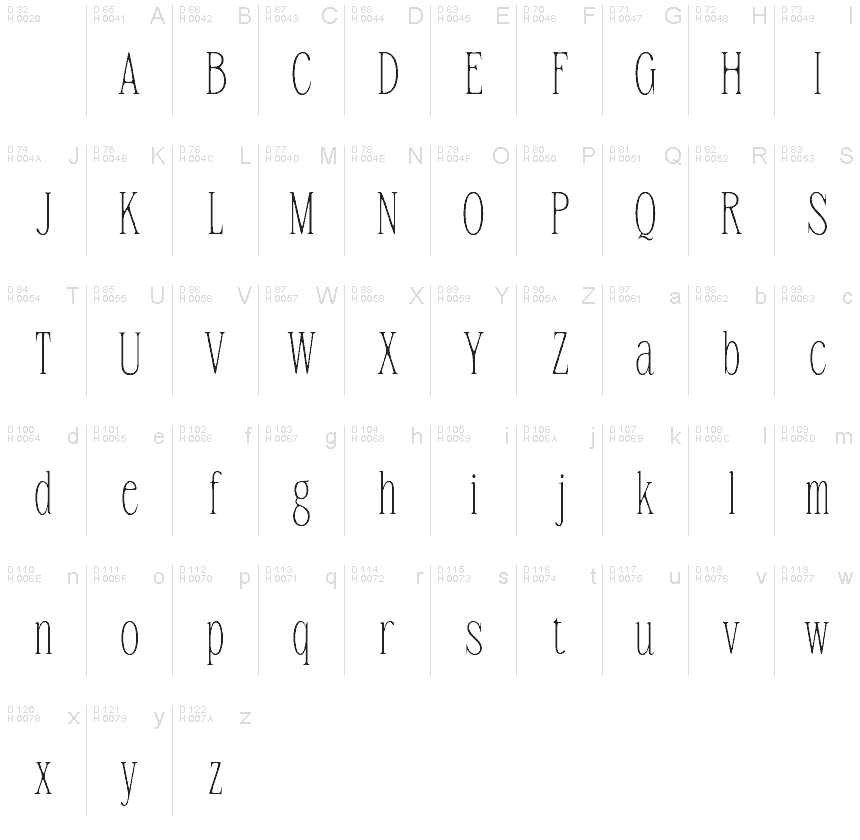
CSLeonaDrawn-Regular Demo
CS Leona Drawn font by Craft Supply Co. beautifully takes after old-school handwriting styles for a sophisticated classic vibe. It is distinguished by simple strokes ending with decorated sharp edges, condensed width, and light weight which grants it exceptional refined elegance exuding that professional feel. The characters are all in extremely high quality faithfully following every detail of their famous old references.